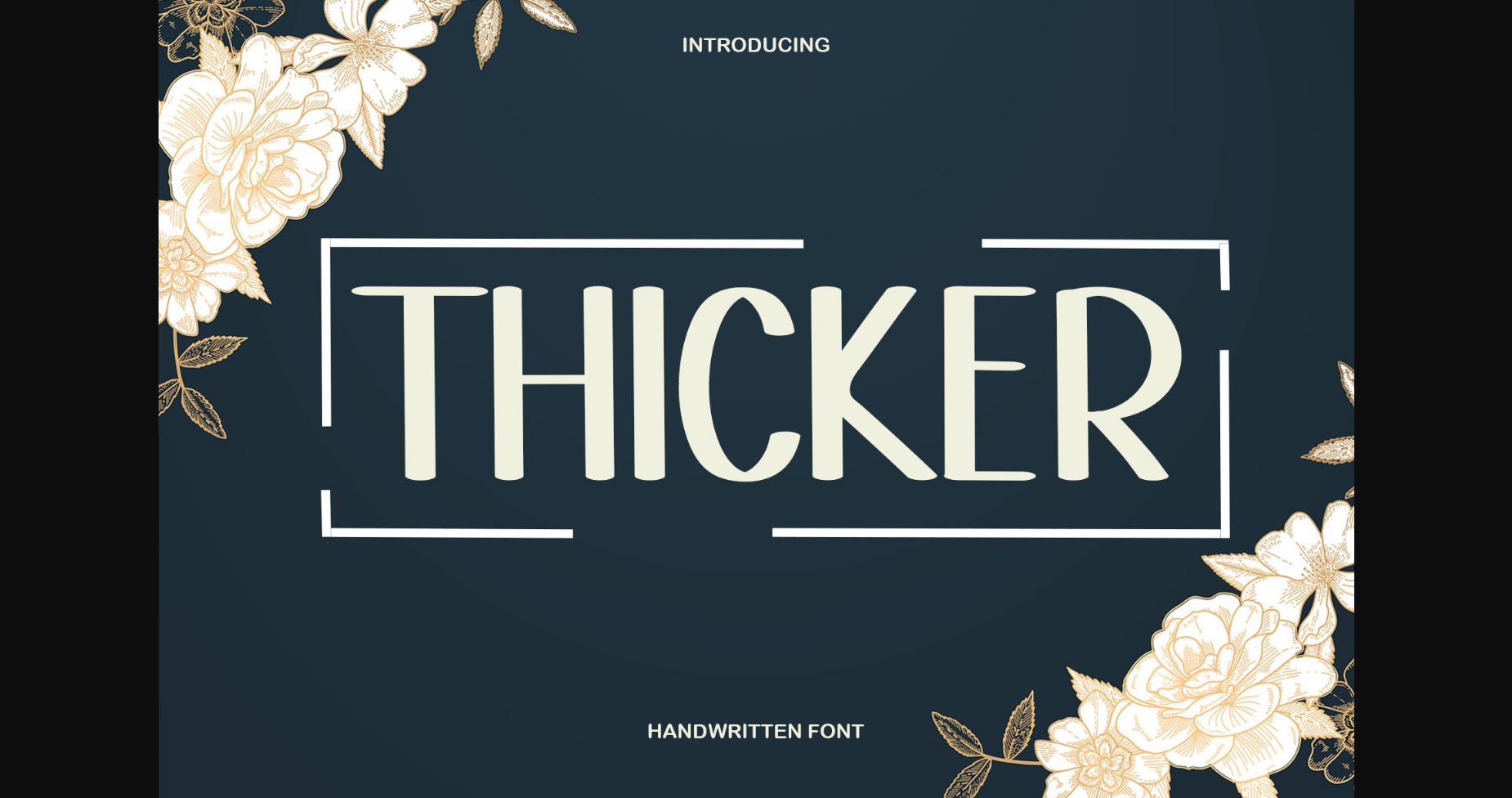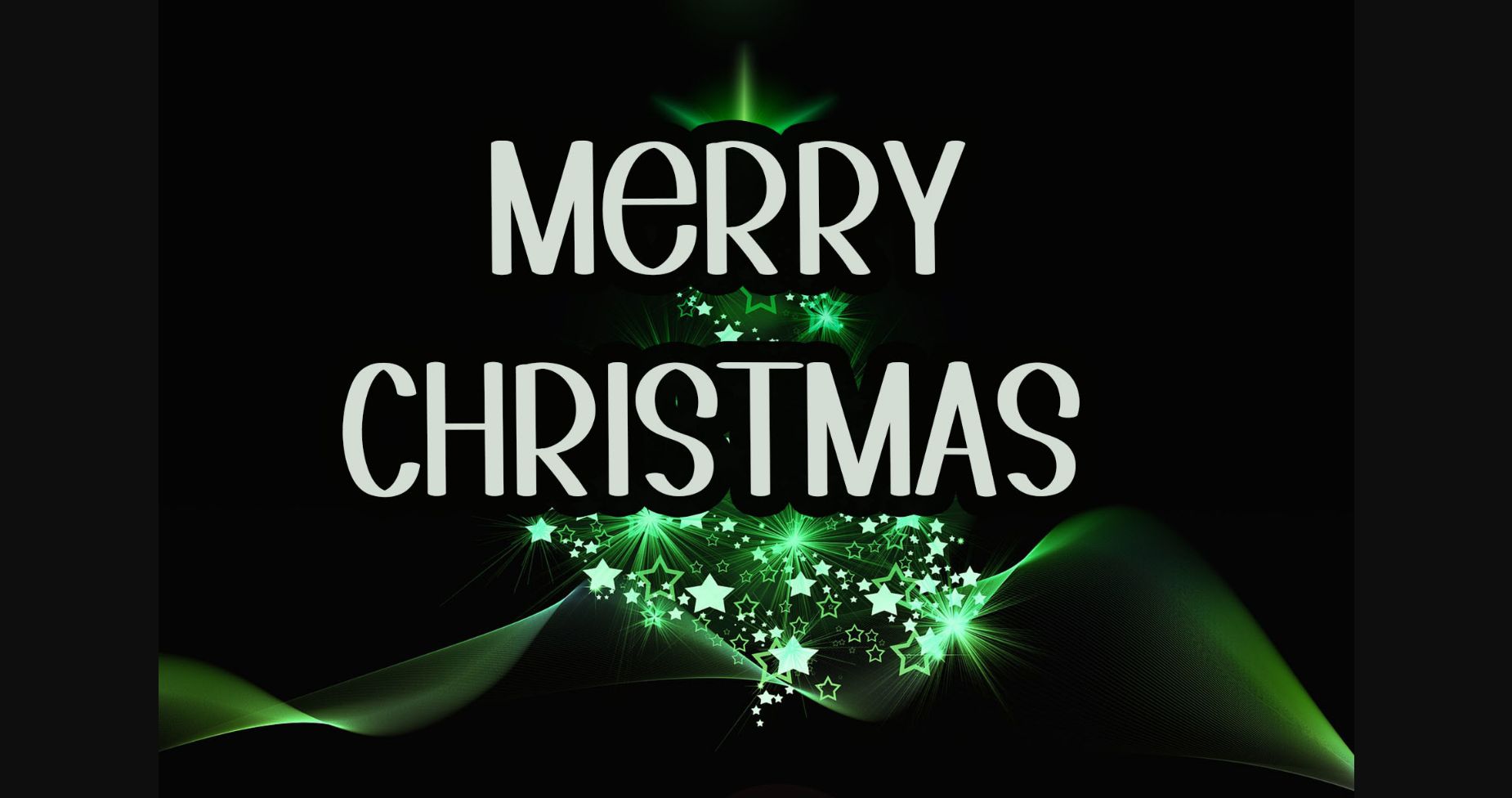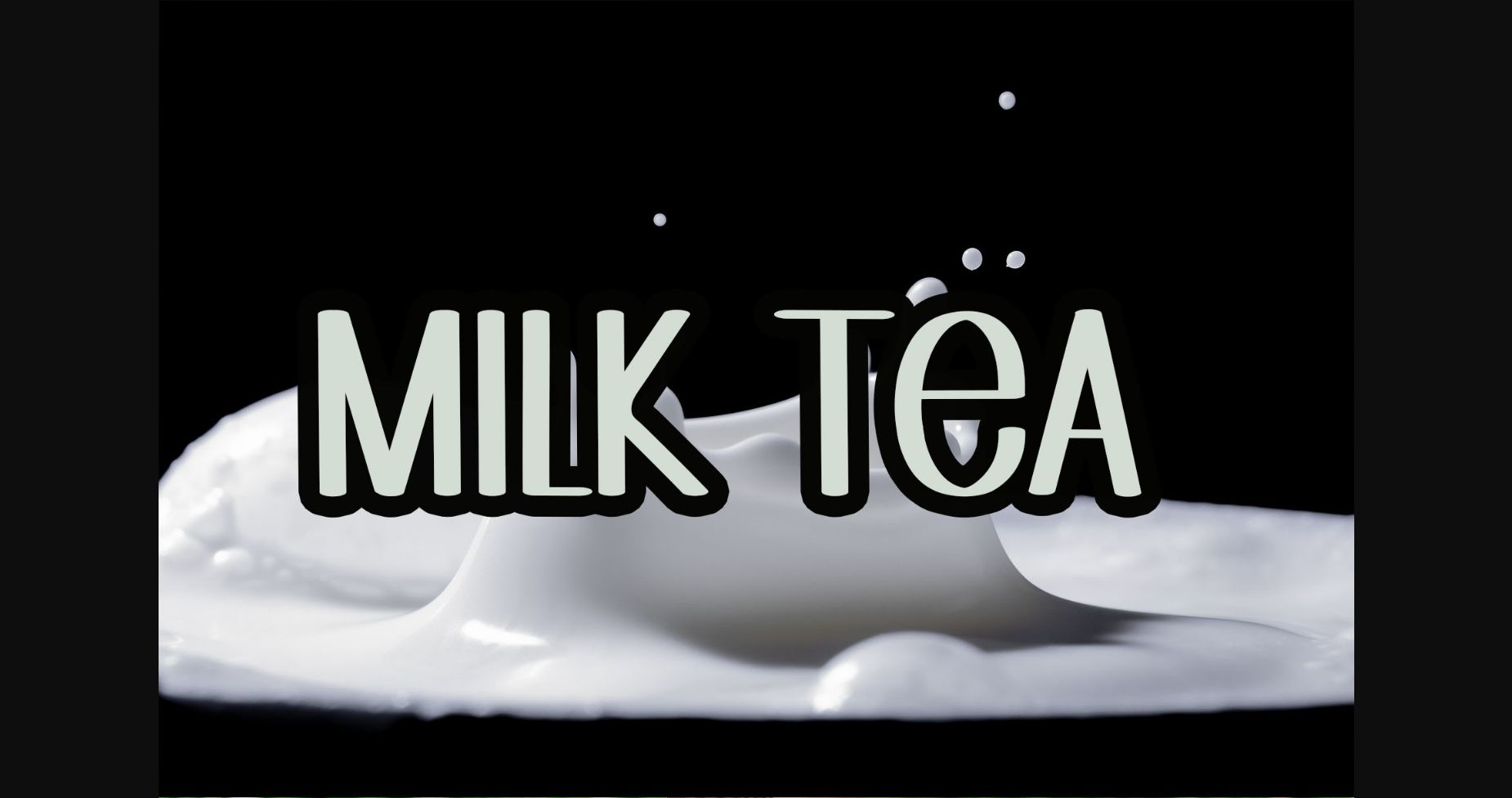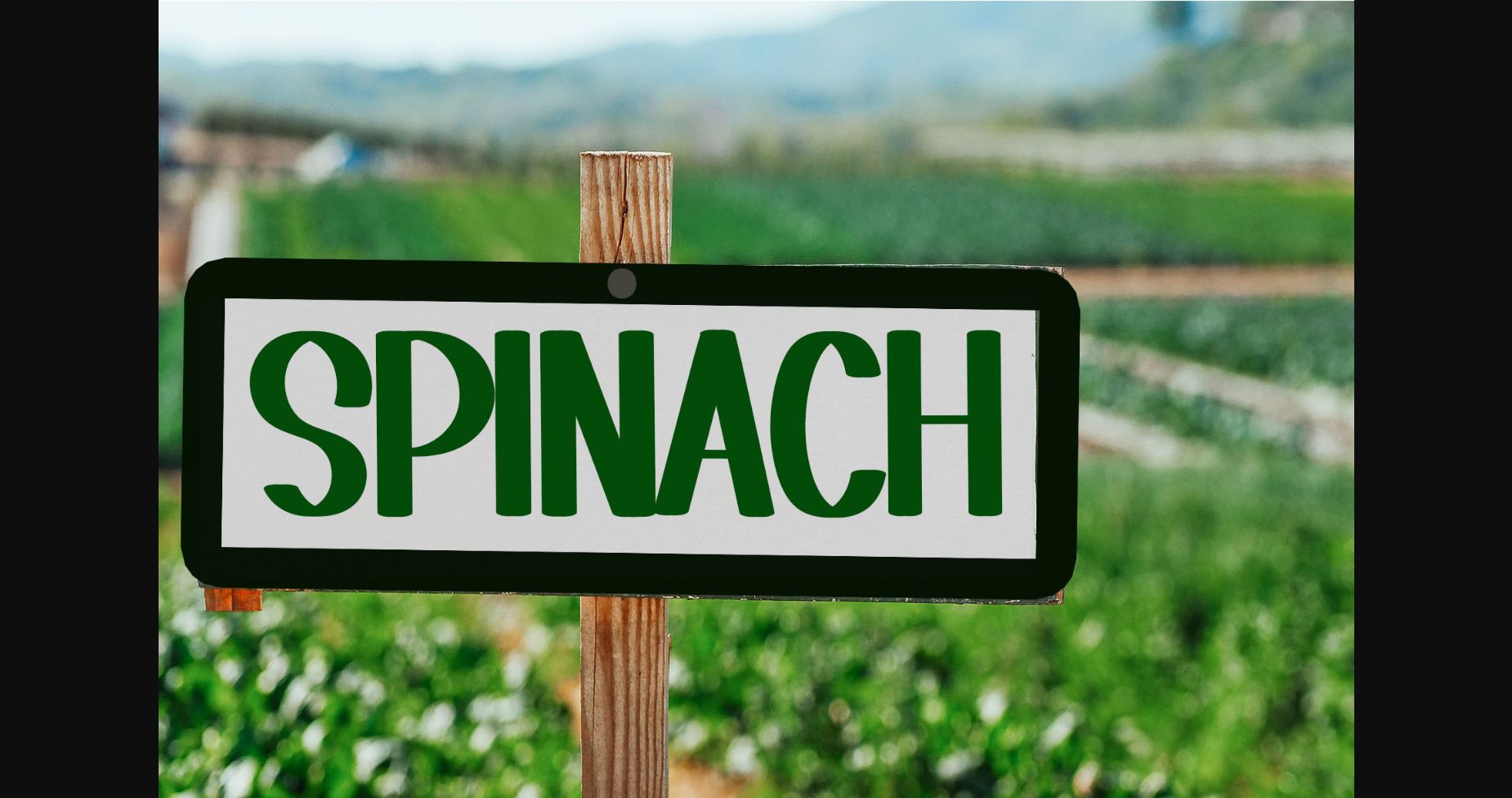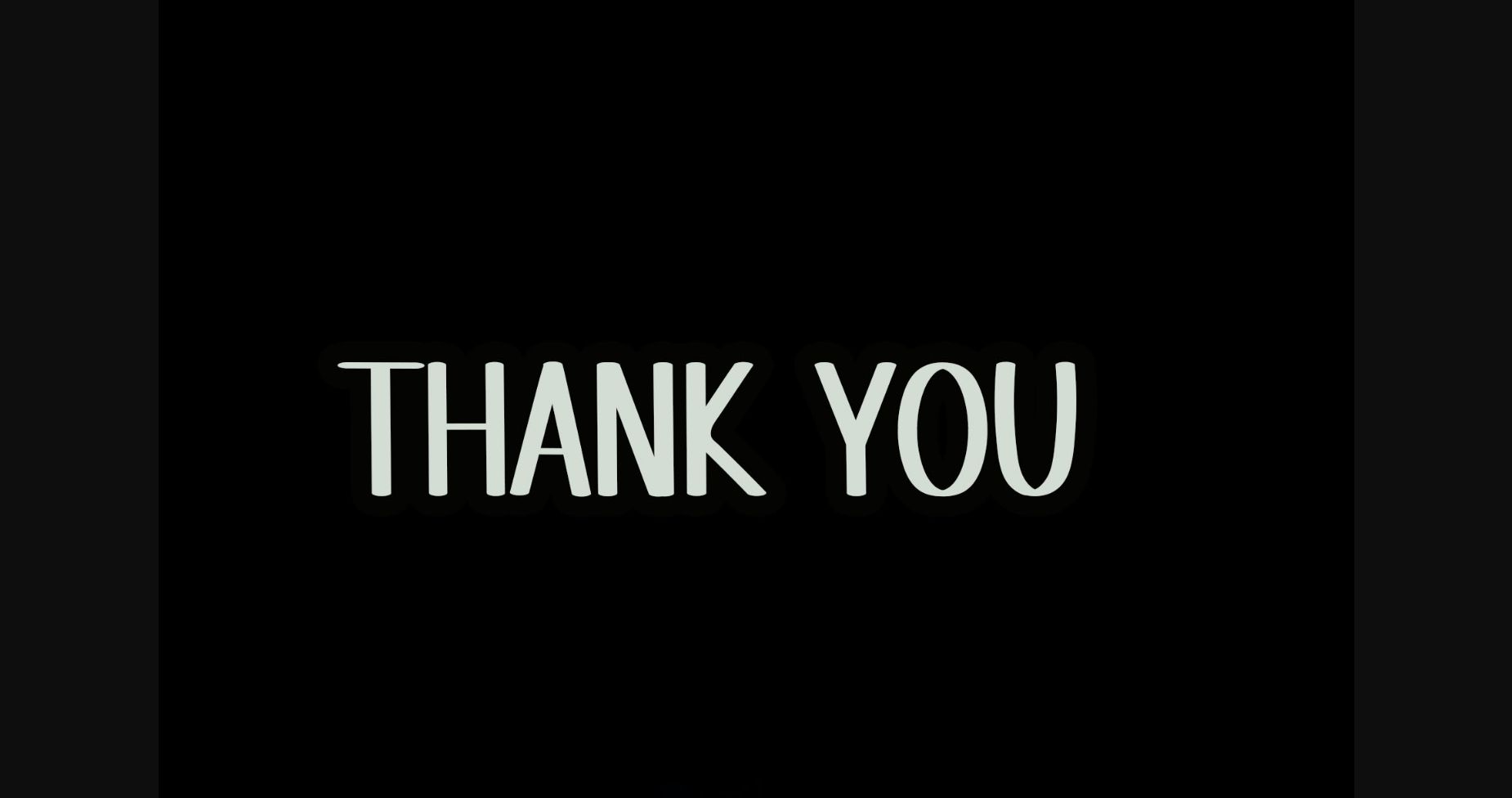
Thicker Font
About Thicker Font
Thicker is a trendy all-caps sans serif font with a contemporary atmosphere and impeccable form, inspired by a timeless classic calligraphy. It will add elegance and class to any of your design projects. This font can be used for various kinds of products according to the aspect of each need.